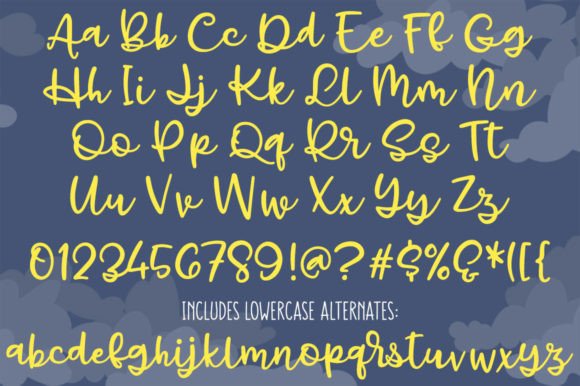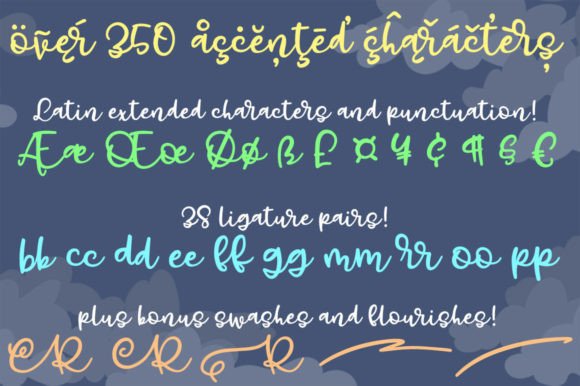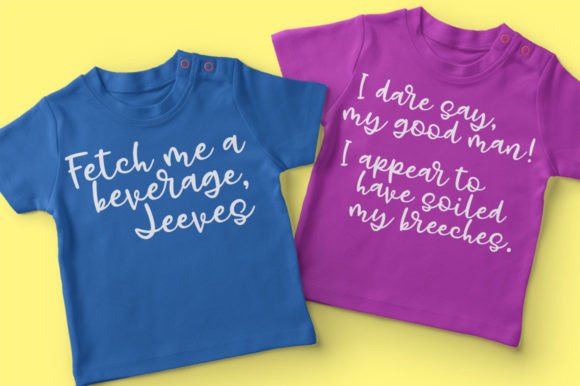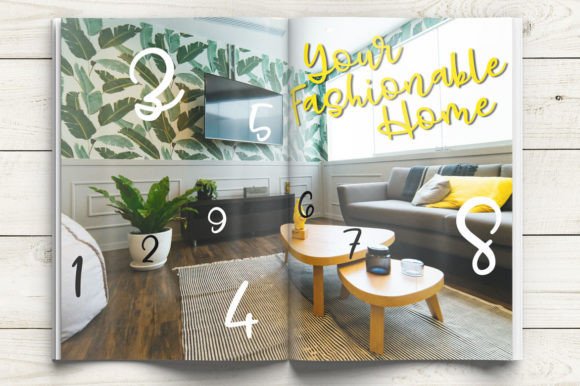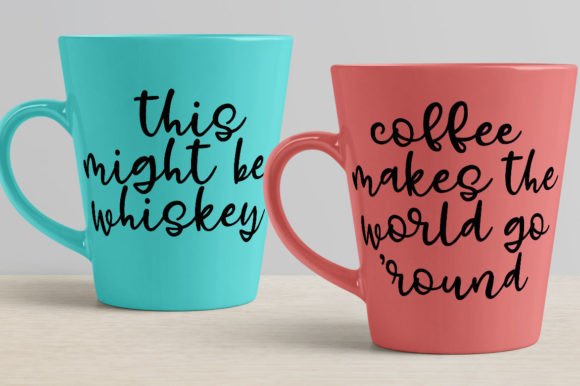
Introducing Gray Skies Font: A New Connecting Script Font
Are you tired of using the same old fonts in your designs? Look no further! We’re excited to introduce Gray Skies, a new connecting script font that’s sure to take your typography to the next level. In this article, we’ll dive into the story behind Gray Skies, its features, and why it’s a must-have for designers and crafters.
The Inspiration Behind Gray Skies
The story of Gray Skies begins with a single letter: Y. Instead of a traditional loop at the bottom, the designer drew a zig-zag smiling-mouth shape. This unusual loop ended up inspiring a lot of the other characters, and a new script font was born! The result is a unique and charming font that’s perfect for adding a personal touch to your designs.
Features of Gray Skies Font
Gray Skies is more than just a beautiful font – it’s also packed with features that make it versatile and easy to use. Here are some of the key features:
- Comprehensive Character Set: Uppercase A-Z, lowercase a-z, numbers 0-9, and a full set of punctuation.
- Language Support: Over 350 accented and extended characters, including Æ, æ, Œ, œ, and ß.
- Alternates: Alternates for lowercase a-z, mapped to Stylistic Alternates in OpenType coding, and also included in the separate Gray Skies Alternates file.
- Ligatures: 38 double- and triple-letter ligature sets, mapped to Ligatures in OpenType coding, and also included in the separate Gray Skies Alternates file.
- Bonus Flourishes and Swashes: 10 bonus flourishes and swashes in the Alternates file – type them separately and attach them anywhere for a little extra flair!
What Makes Gray Skies Font Special?
So, what sets Gray Skies apart from other script fonts? Here are a few things that make it special:
- Unique Character Design: The zig-zag loop that started it all gives Gray Skies a distinctive look that’s both modern and elegant.
- Highly Versatile: With its comprehensive character set, language support, and alternates, Gray Skies is perfect for a wide range of design projects.
Why Designers and Crafters Love Gray Skies Font
Gray Skies is a must-have for designers and crafters who want to add a personal touch to their work. Here are a few reasons why:
- Adds a Personal Touch: With its unique character design and alternates, Gray Skies is perfect for adding a personal touch to your designs.
- Perfect for Handmade Projects: The font’s elegant and modern look makes it perfect for handmade projects, such as craft tutorials, invitations, and more.
- Great for Branding: Gray Skies is also great for branding projects, such as logos, business cards, and letterheads.
Tips for Using Gray Skies Font
Here are a few tips for getting the most out of Gray Skies:
- Experiment with Alternates: Don’t be afraid to try out different alternates to find the perfect look for your design.
- Use Ligatures: Ligatures can add an extra touch of elegance to your design – experiment with different ligature sets to find the one that works best.
- Add Flourishes and Swashes: The bonus flourishes and swashes in the Alternates file can add a little extra flair to your design.
Gray Skies is a beautiful and versatile script font that’s perfect for designers and crafters who want to add a personal touch to their work. With its unique character design, comprehensive character set, and ease of use, Gray Skies is a must-have for any design project. Whether you’re working on a handmade project, branding project, or just want to add some elegance to your typography, Gray Skies is the perfect choice.